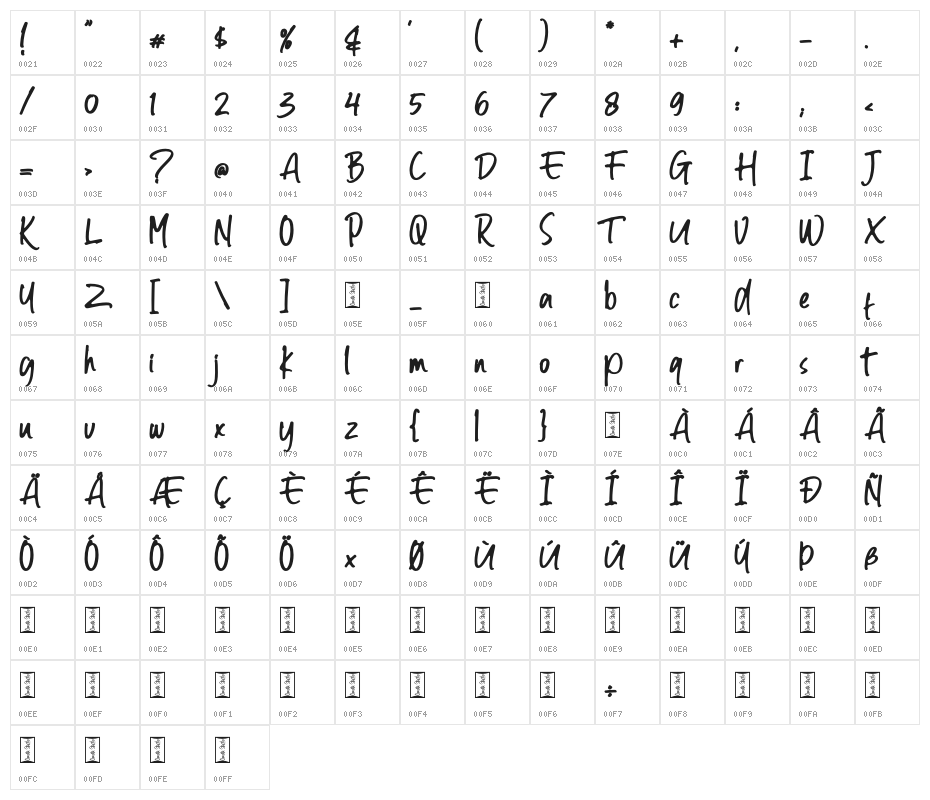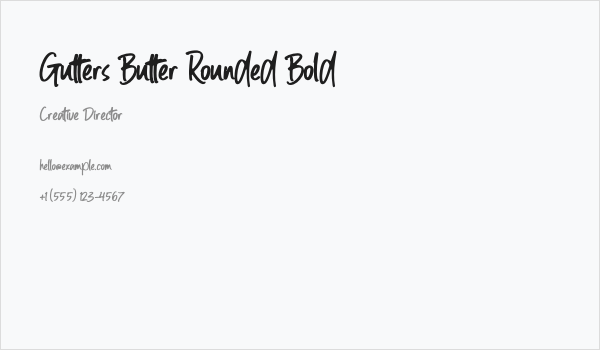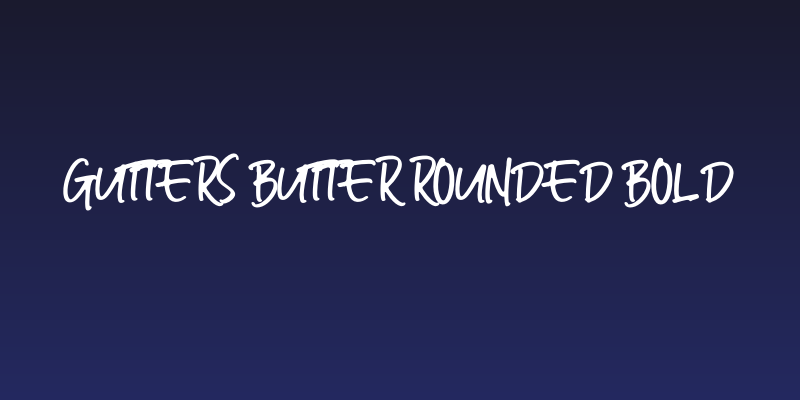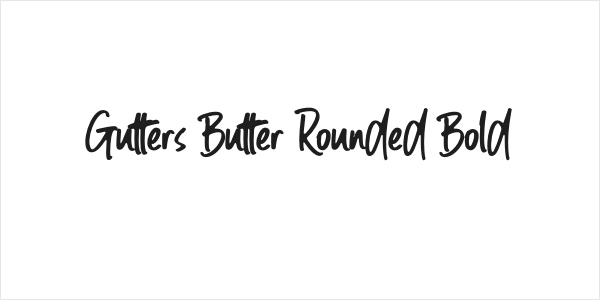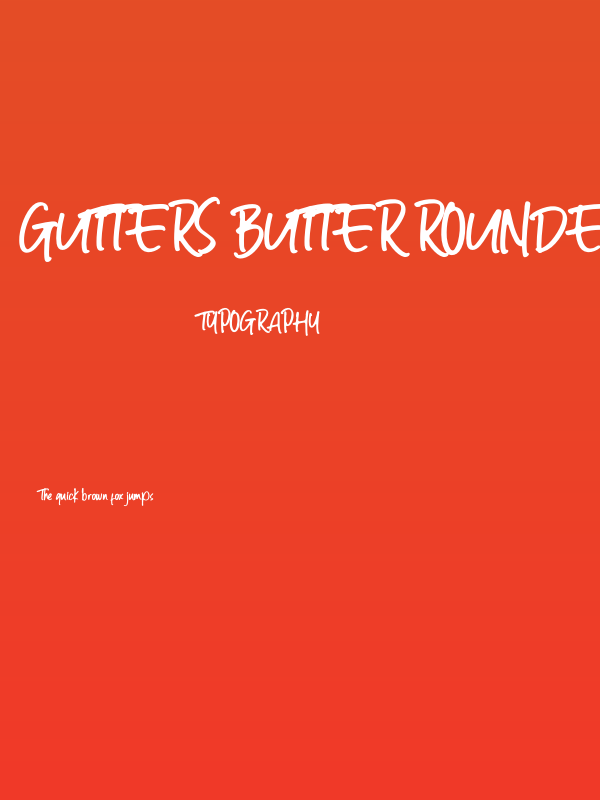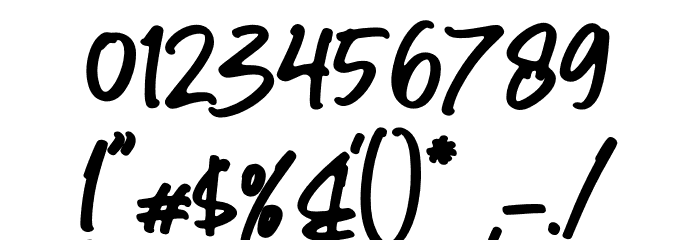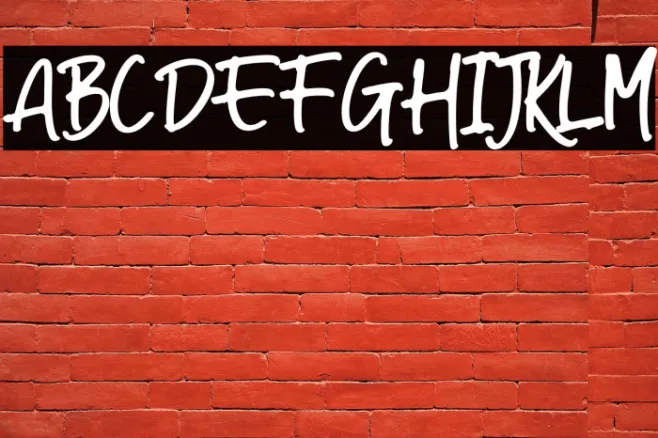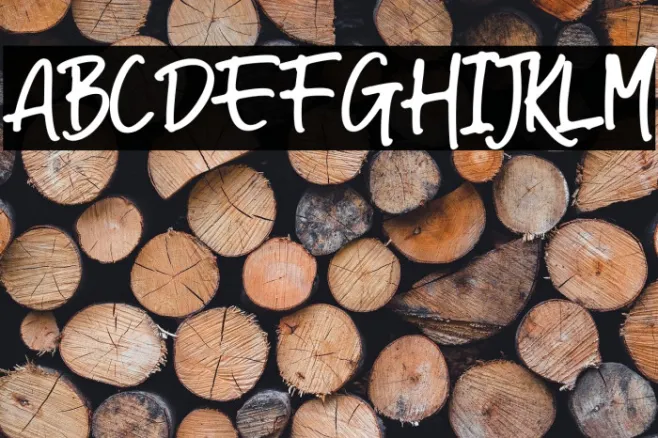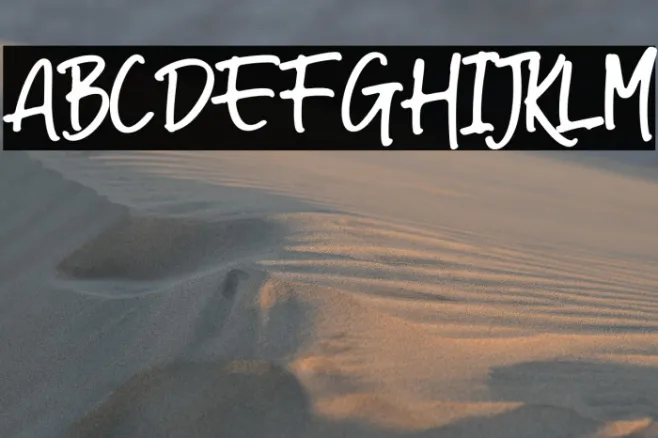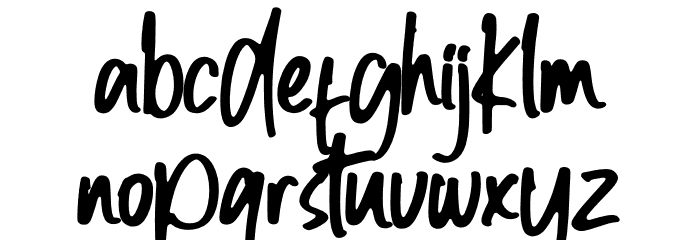
Gutters Butter Rounded Bold Font
Gutters Butter Rounded Bold Description
This font features a bold and rounded style with a handwritten appearance. The letters are dynamic and fluid, giving a sense of movement and energy. The uppercase and lowercase characters maintain a consistent weight, contributing to a cohesive look. Numbers and special characters are designed with the same boldness, ensuring uniformity across all elements. The rounded edges soften the overall appearance, making it approachable and friendly. This font is versatile, suitable for various creative projects where a personal touch is desired.
| Proposed Projects | Ideal for branding, packaging, social media graphics, and creative posters. |